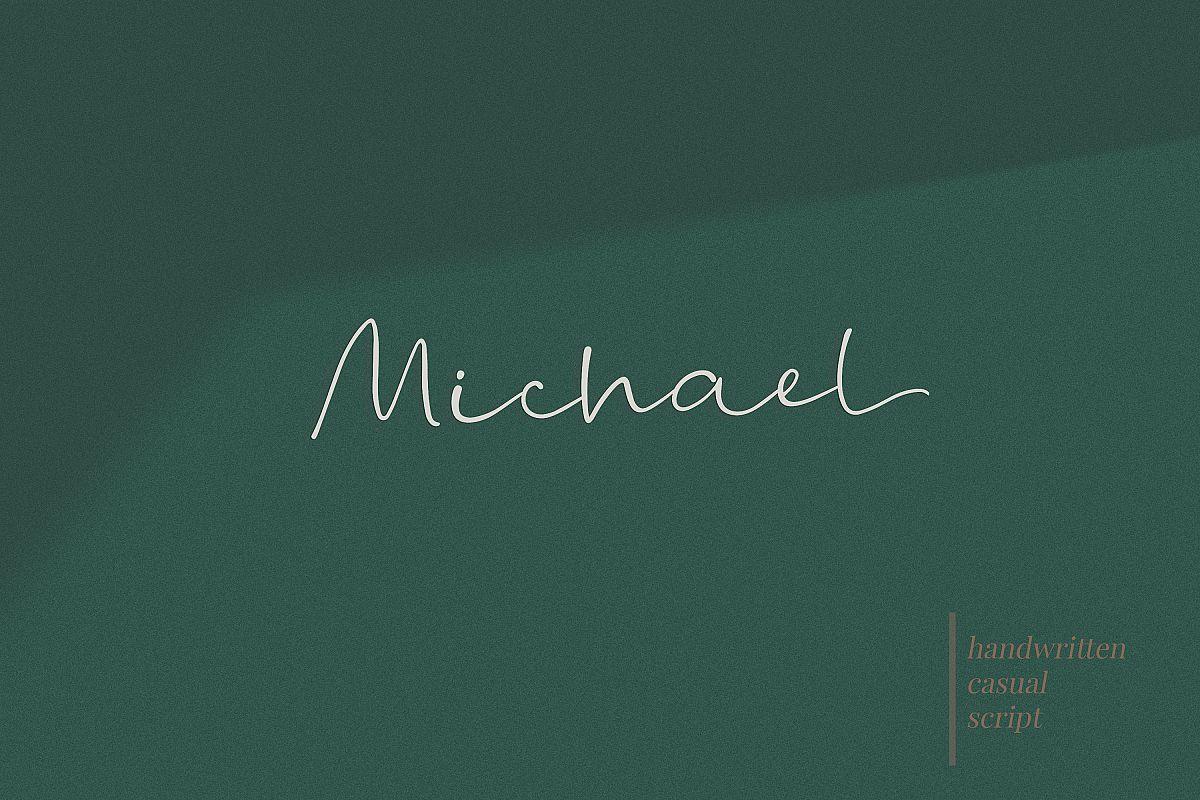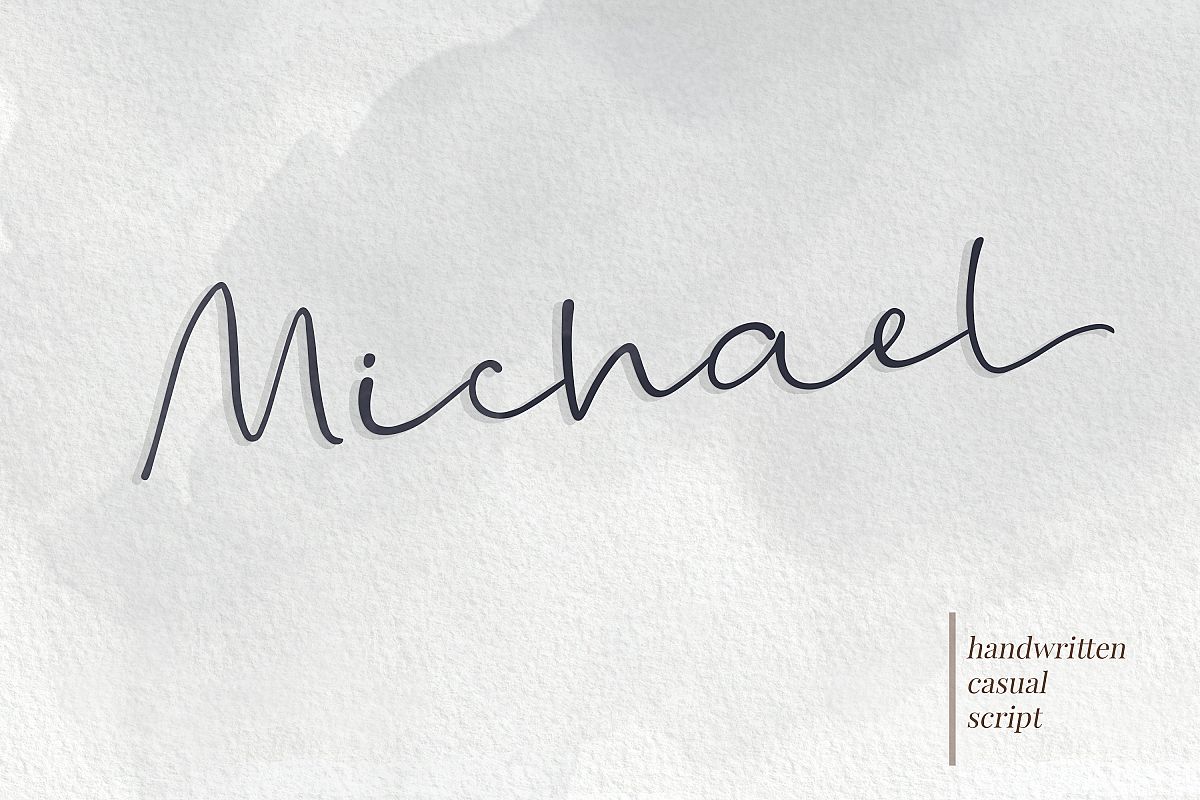
Michael - a casual handwritten script
Michael Script -
a casual handwritten style font with a range of ligatures, opentype stylistic ends, decorative swashes,
perfect for any awesome projects that need handwriting taste.
for logos, titles, body texts, branding, invitations and also when
used along other fonts with strong and bold styles.